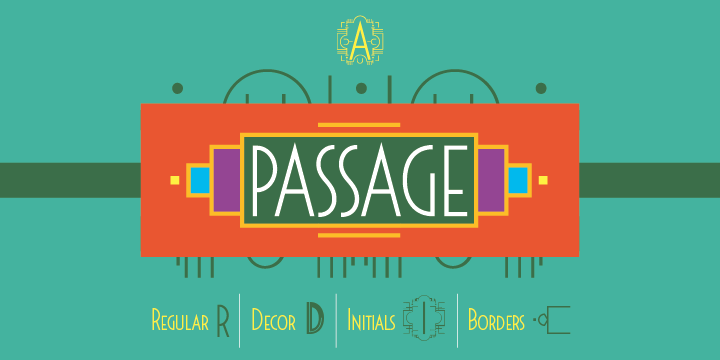
Passage Font is a versatile and modern typeface that offers a perfect balance of contemporary style and excellent readability. Its clean lines and balanced proportions make it an ideal choice for a wide array of design projects, offering a sense of openness and fluidity. Imagine it perfect for innovative tech company branding, sleek website designs, engaging mobile application interfaces, modern editorial layouts, compelling infographics, and professional corporate presentations. This font excels in environments where clarity, sophistication, and a forward-thinking aesthetic are paramount. It ensures your message is not only visually appealing but also effortlessly digestible, making it a powerful tool for effective and streamlined communication across all digital and print platforms.
What makes Passage Font truly exciting is its intelligent simplicity and remarkable adaptability. It possesses a subtle character that distinguishes it from generic typefaces, while maintaining a high degree of neutrality that allows it to complement various design elements without overpowering them. This font isn't just about displaying text; it enhances the content by providing a clear, unobtrusive canvas that lets your message shine. It has a powerful ability to feel both incredibly modern and surprisingly versatile, making it an ideal tool for designers who want their work to convey clarity, structure, and a sophisticated, contemporary edge. Passage Font empowers brands and creatives to project an image of reliability and innovative design.
The Passage Font family is typically comprehensive, offering a wide array of weights and styles to ensure maximum flexibility for diverse design projects. You'll often find it includes a full spectrum from light or thin to regular, medium, semi-bold, and bold, sometimes extending to ultra-bold or black weights. Corresponding italic styles are also commonly available, providing robust options for typographic hierarchy and emphasis. This extensive family ensures that Passage Font Free Download can adapt seamlessly to any design challenge, from subtle body text to commanding headlines, all while maintaining a consistent and harmonious visual language. Its broad character set usually covers a wide range of Latin characters, numbers, and extensive punctuation, making it suitable for international projects and complex textual layouts.